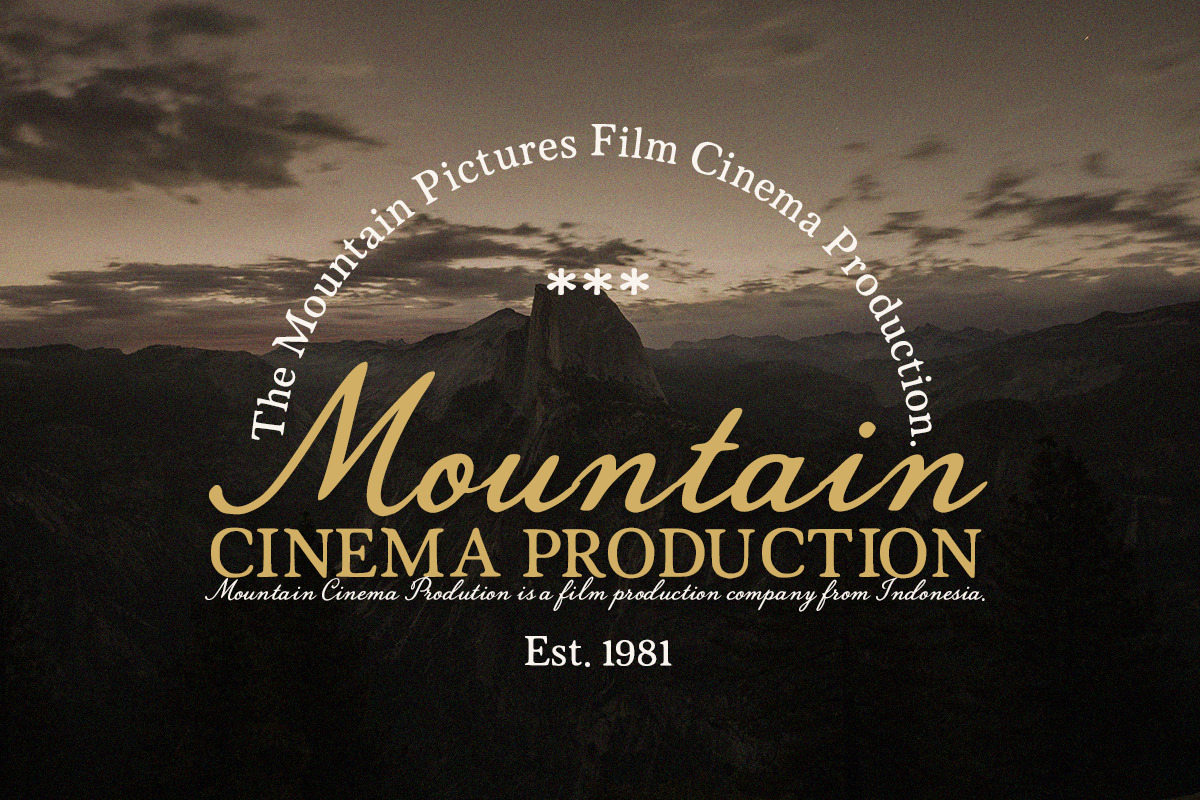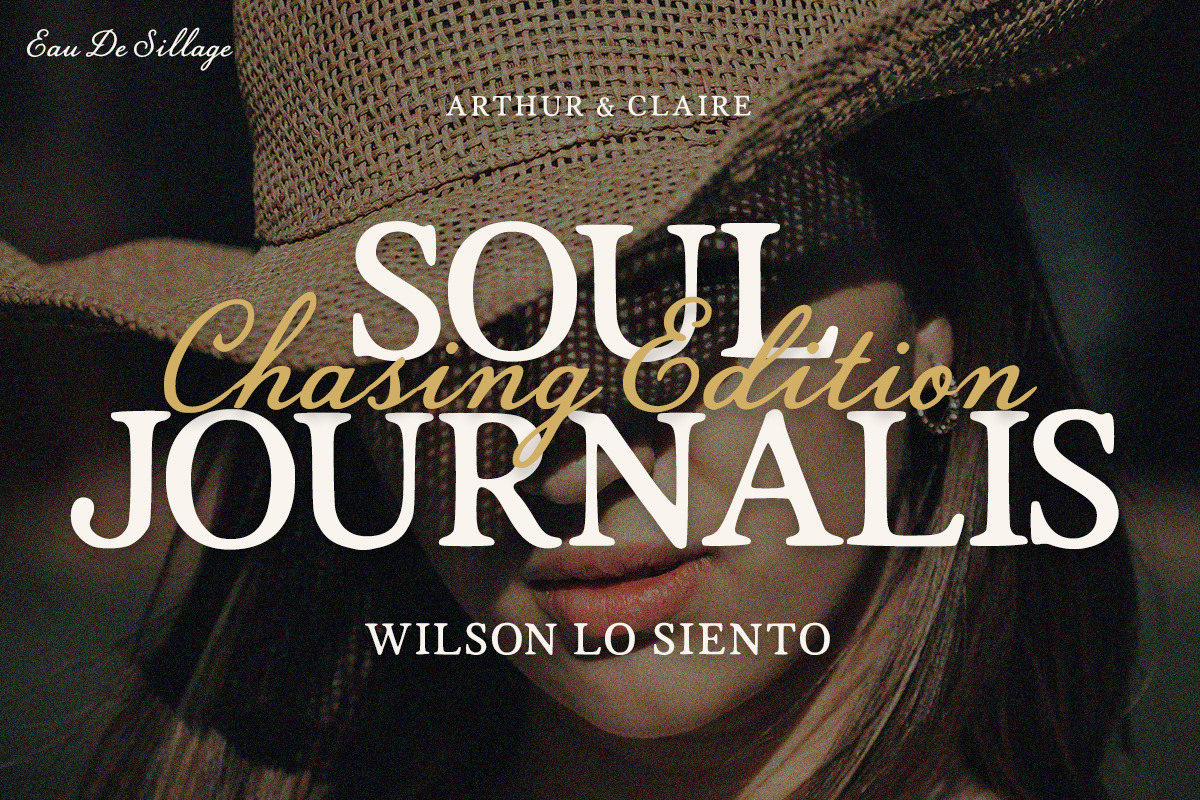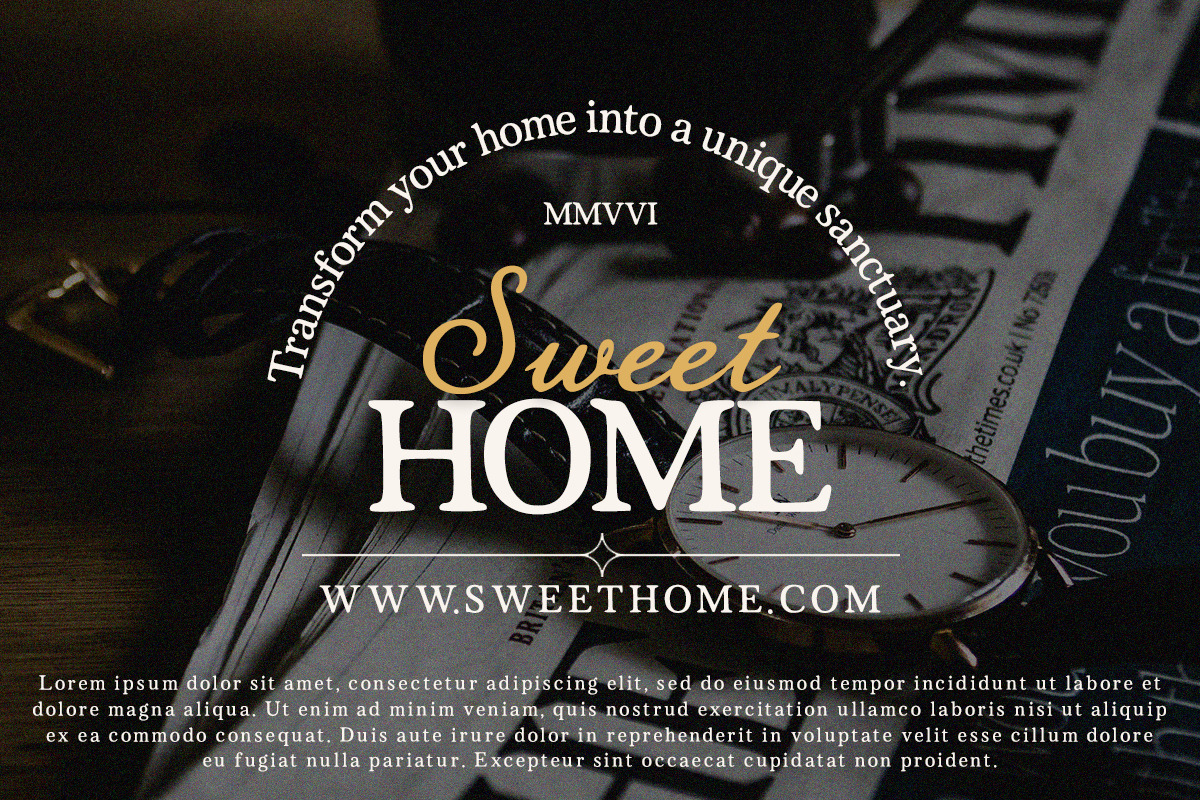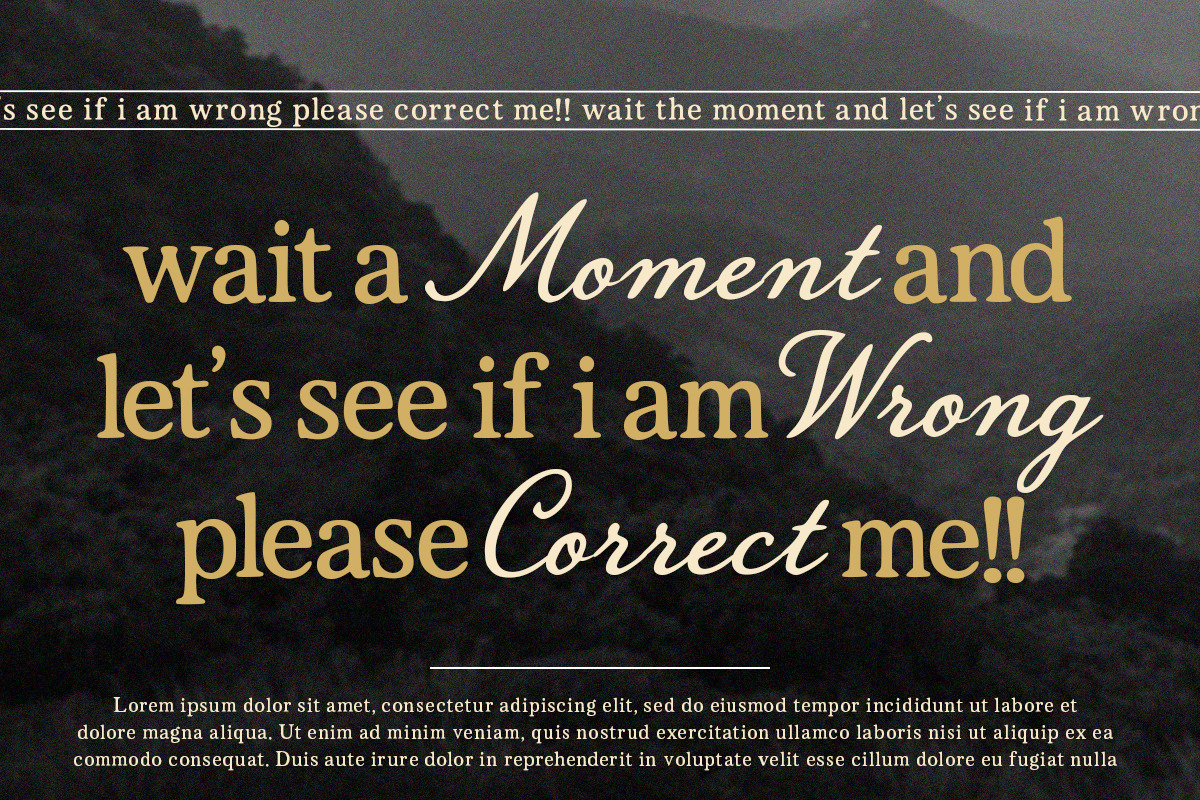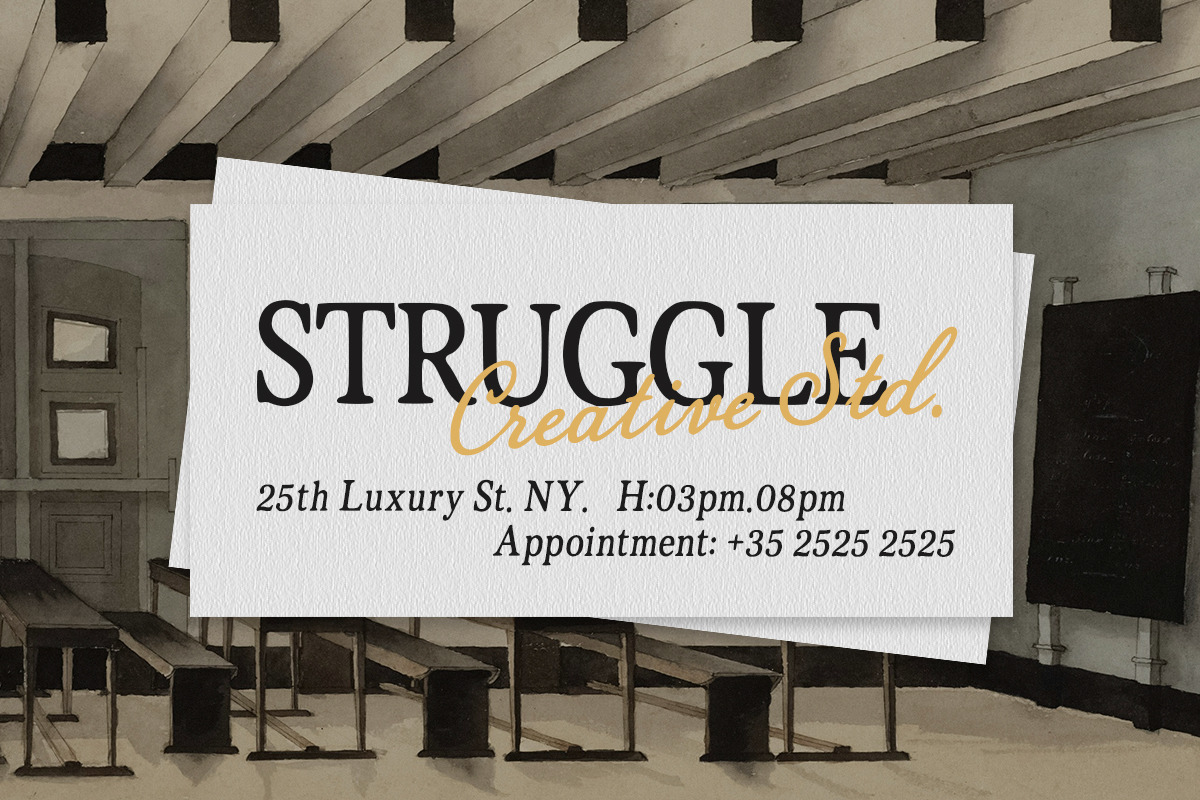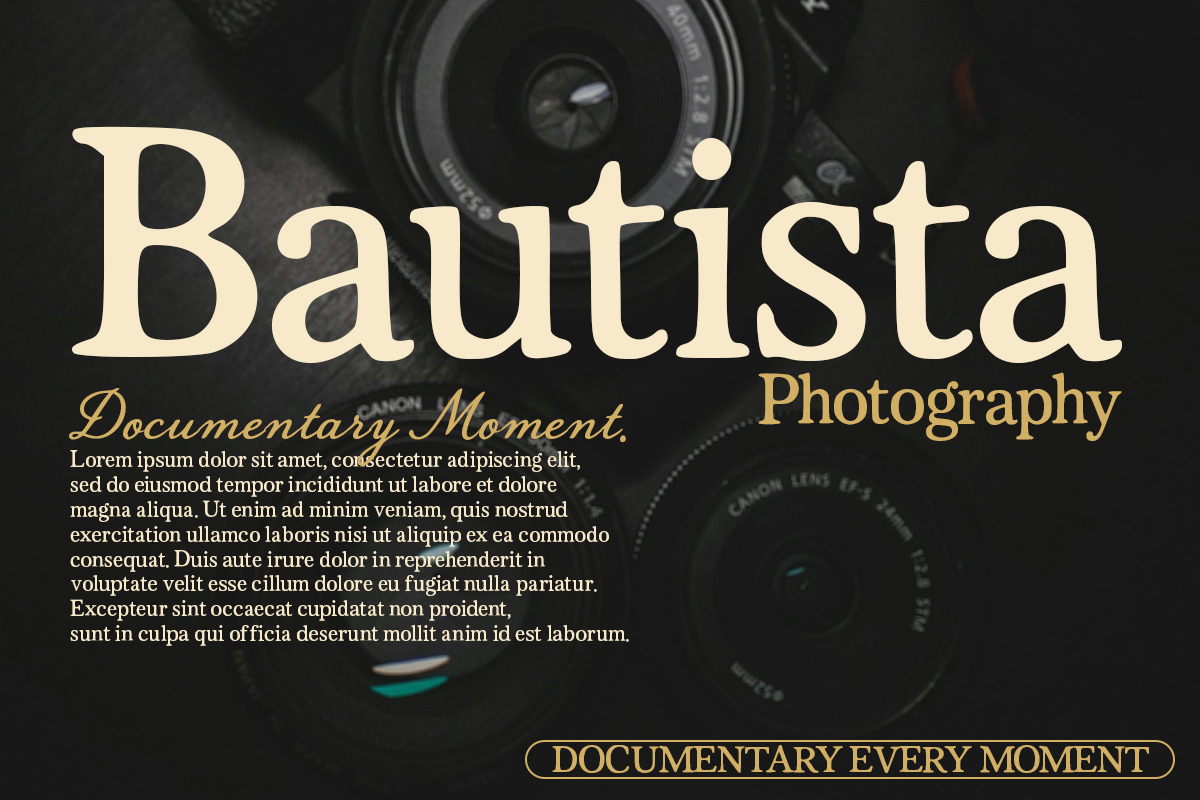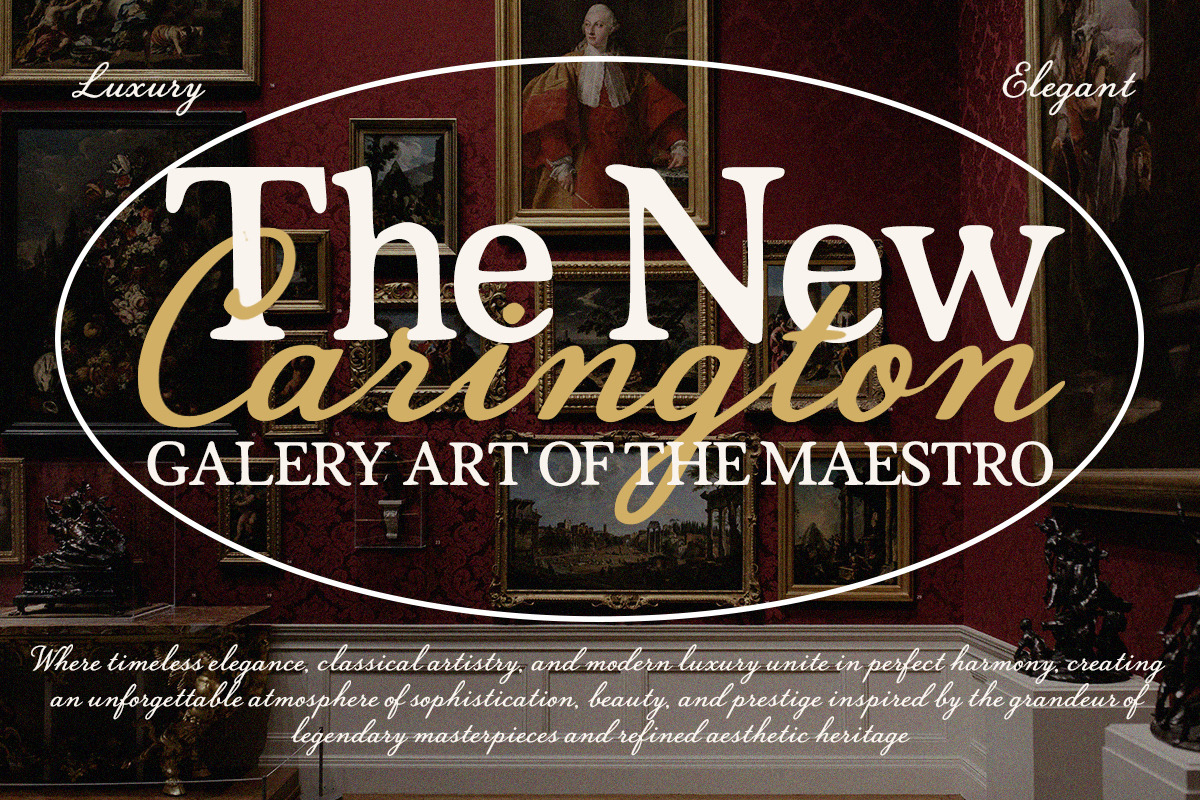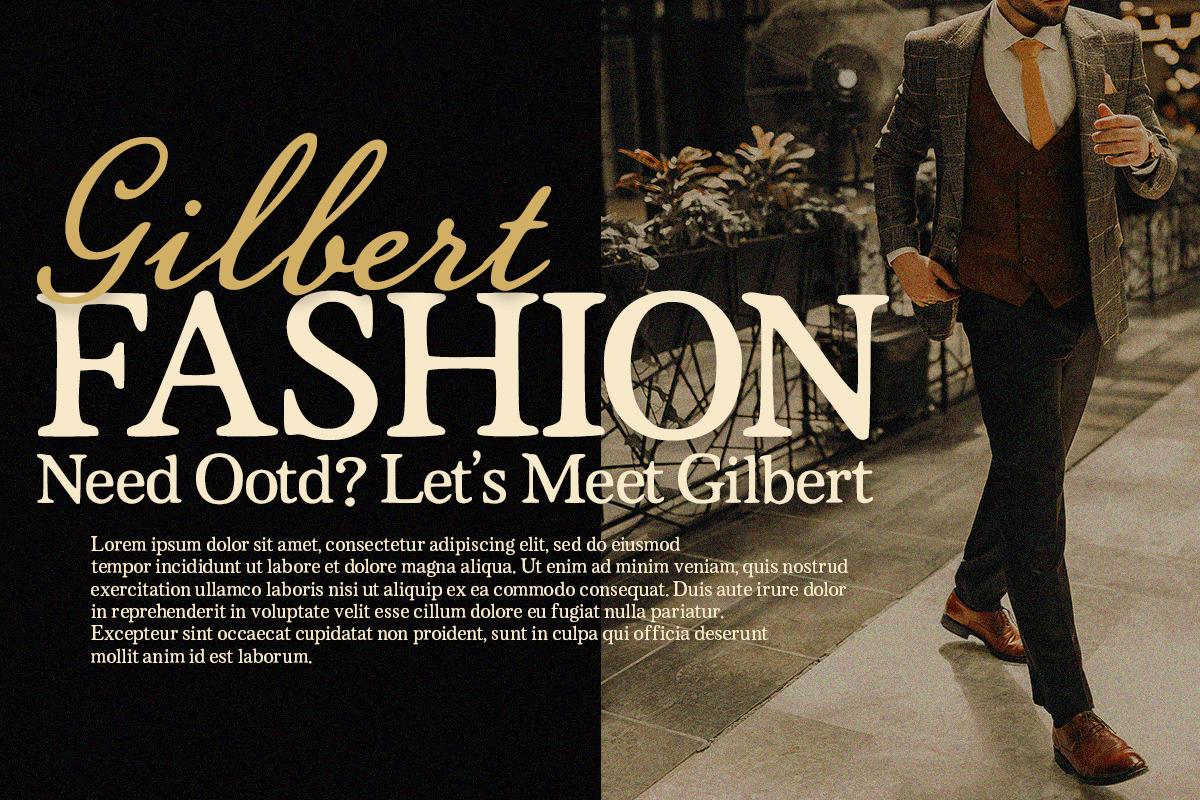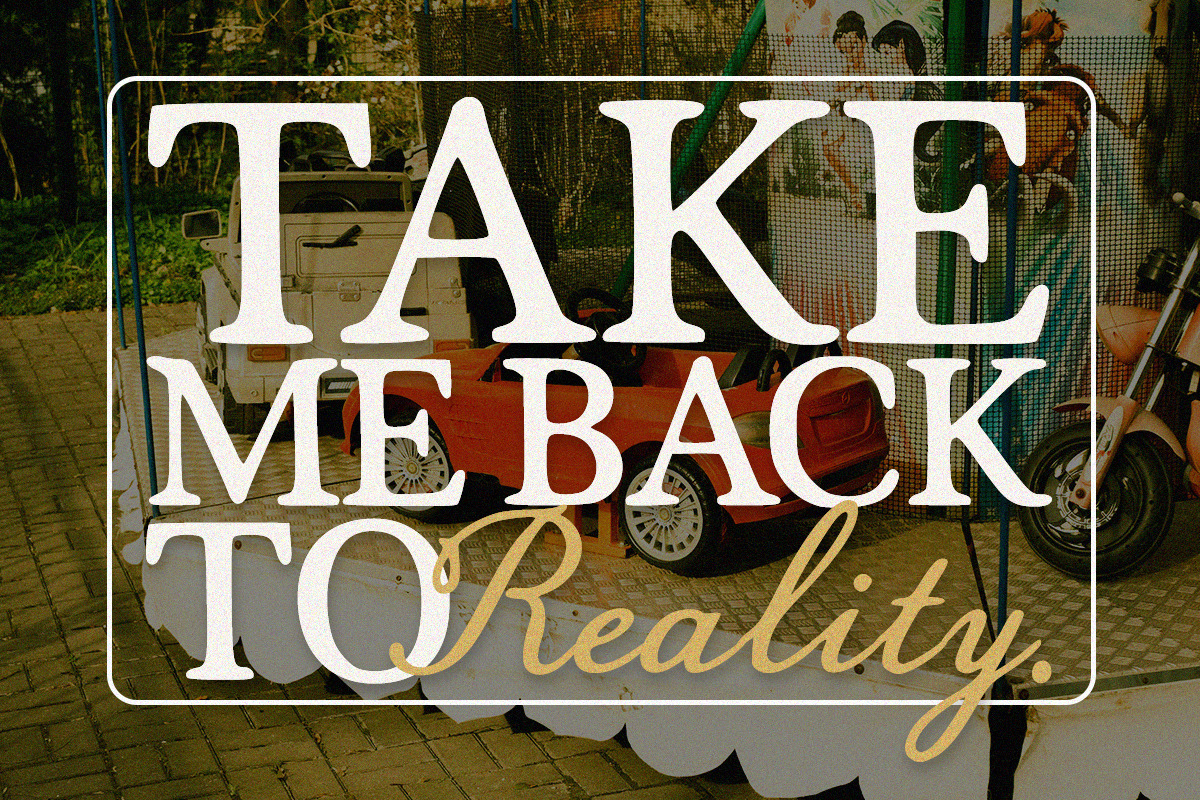
Giacomo
Giacomo – Timeless Elegance & Contemporary Sophistication
Introducing Giacomo, a premium font collection meticulously crafted by Strap Studio to bring an aura of luxury and high-end style to your design projects. Perfectly balancing classic structure with modern refinement, Giacomo is designed for creators who refuse to compromise on sophistication.
The Collection Breakdown
Giacomo is not just a single font—it is a versatile typographic system that includes:
Regular: A stunning display serif featuring balanced contrast, bold presence, and timeless elegance.
Italic: A graceful, slanted variation that adds a dynamic yet high-class rhythm to your text.
Script: A beautifully fluid, handwritten companion that provides an authentic, organic touch to editorial layouts.
High-Contrast Serif Expression: Offers a powerful visual impact for headings and titles while maintaining flawless readability.
Luxurious Versatility: The seamless interplay between the bold serif and the organic script font gives you endless creative freedom.
Carefully Crafted Details: Every curve, terminal, and ligature has been structurally refined to evoke a classic, editorial aesthetic.
Whether you are designing for the fashion, beauty, hospitality, or corporate sectors, Giacomo elevates any canvas. It is the ultimate choice for:
Luxury branding, logos, and monograms
High-end editorial layouts and magazine covers
Elegant wedding invitations and stationery
Sophisticated product packaging and cosmetic labels
Social media graphics with a refined, moody aesthetic
Elevate your design hierarchy with Giacomo and let your typography speak the language of pure luxury.